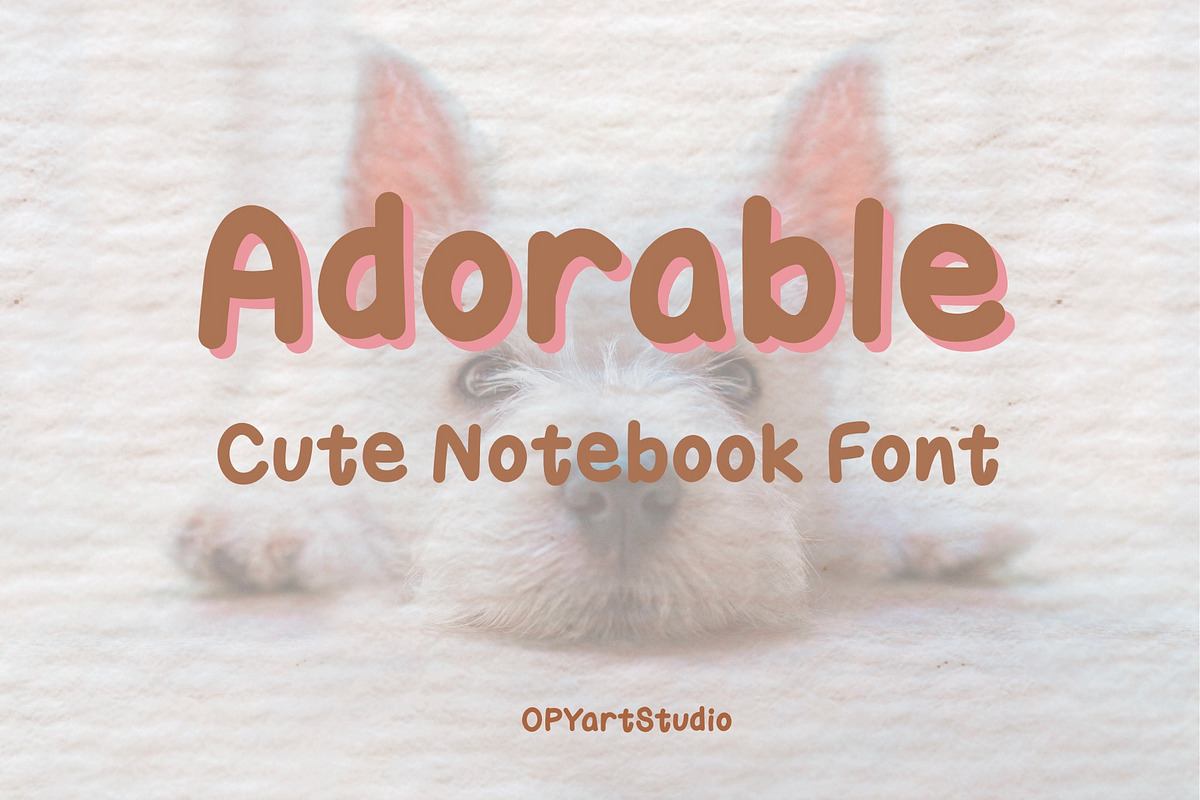
Adorable Notebook - Handwriting Font Free Download
Adorable Notebook – Handwriting Font Free Download is a sweet and casual typeface that captures the charm of natural handwriting. With its playful curves and relaxed flow, this font is perfect for journaling-inspired designs, planners, classroom materials, greeting cards, and creative social media graphics.
Its hand-drawn feel makes it ideal for projects that need a personal, approachable touch. Whether you're designing for kids, stationery, or lifestyle blogs, Adorable Notebook adds warmth and personality to every word.